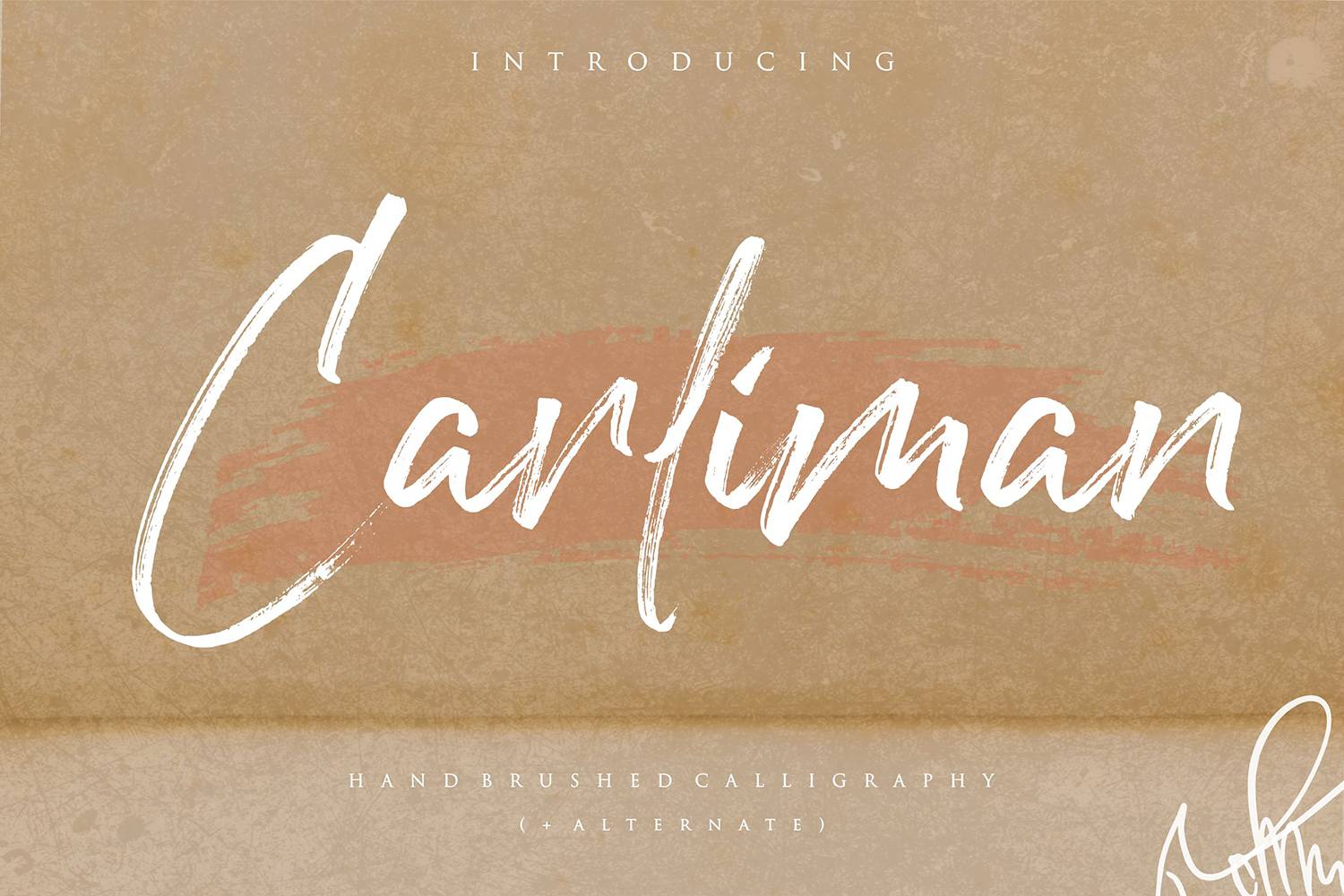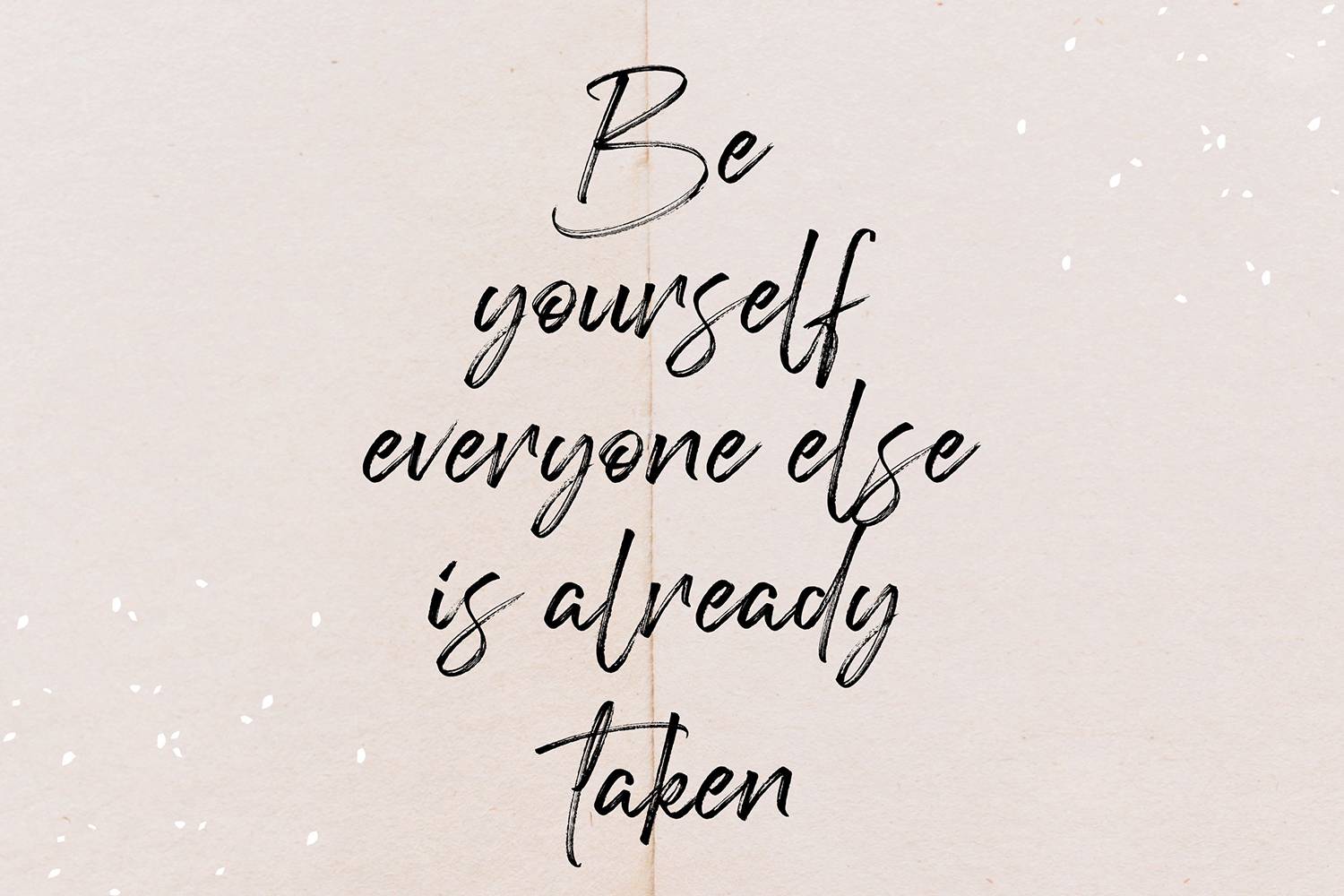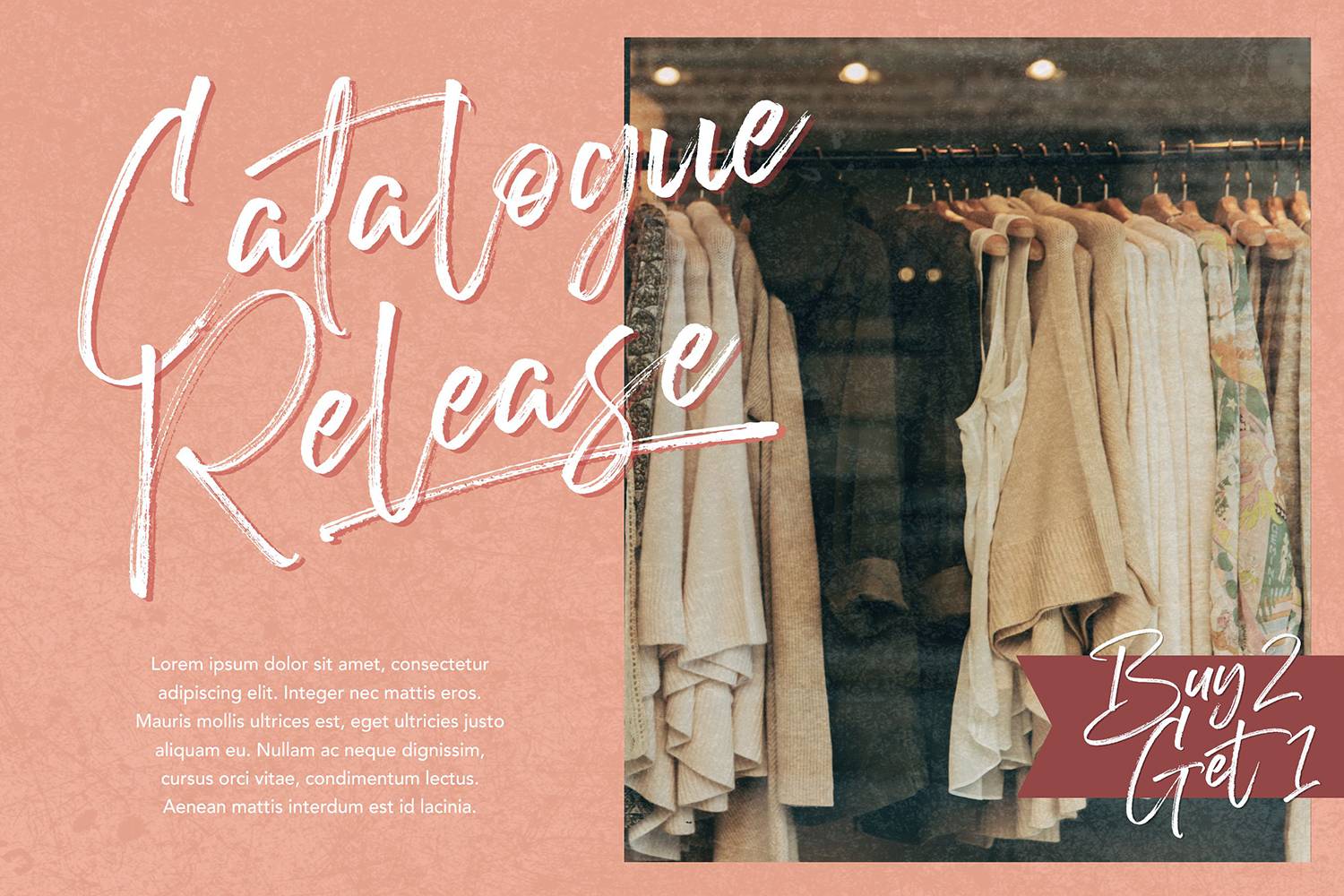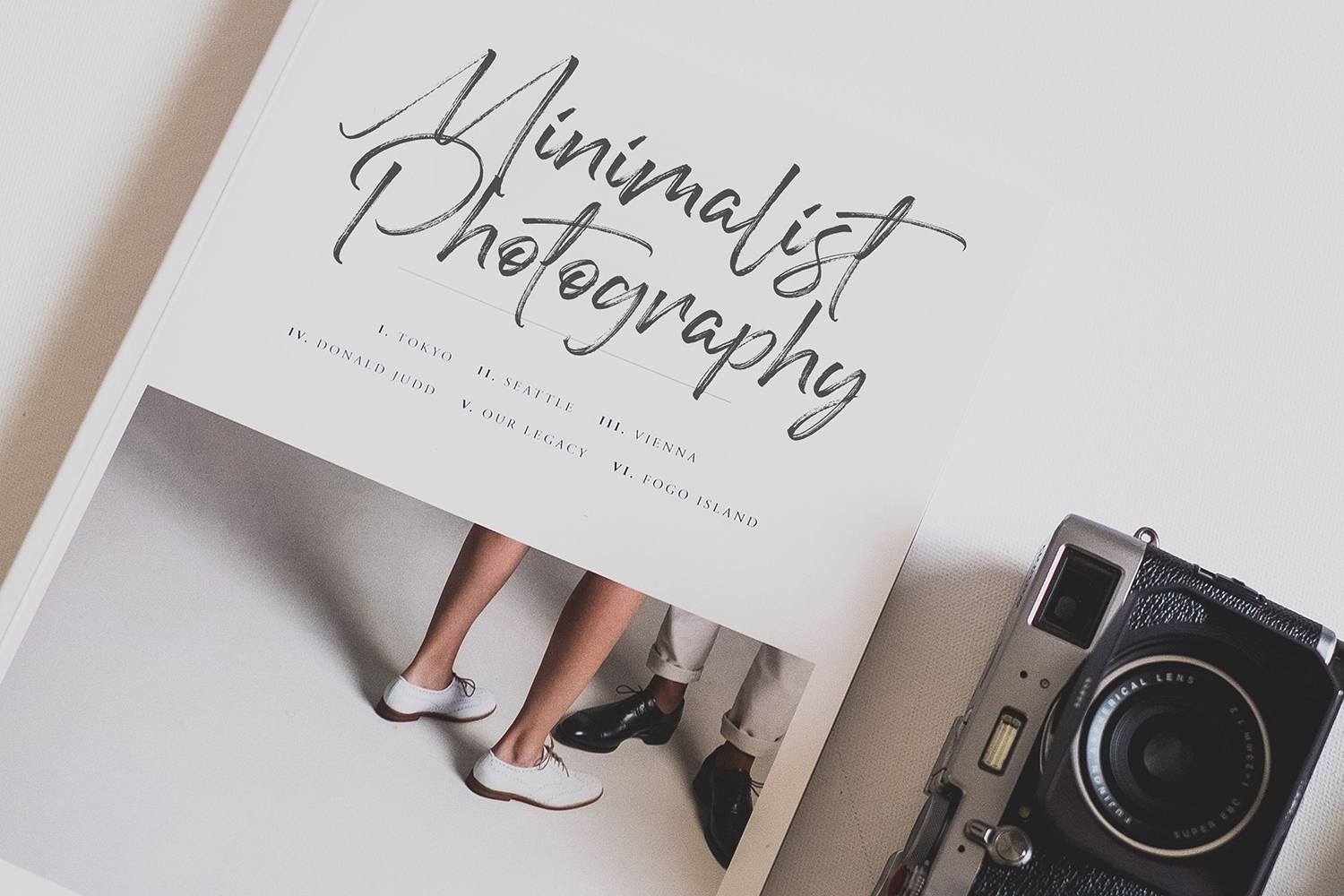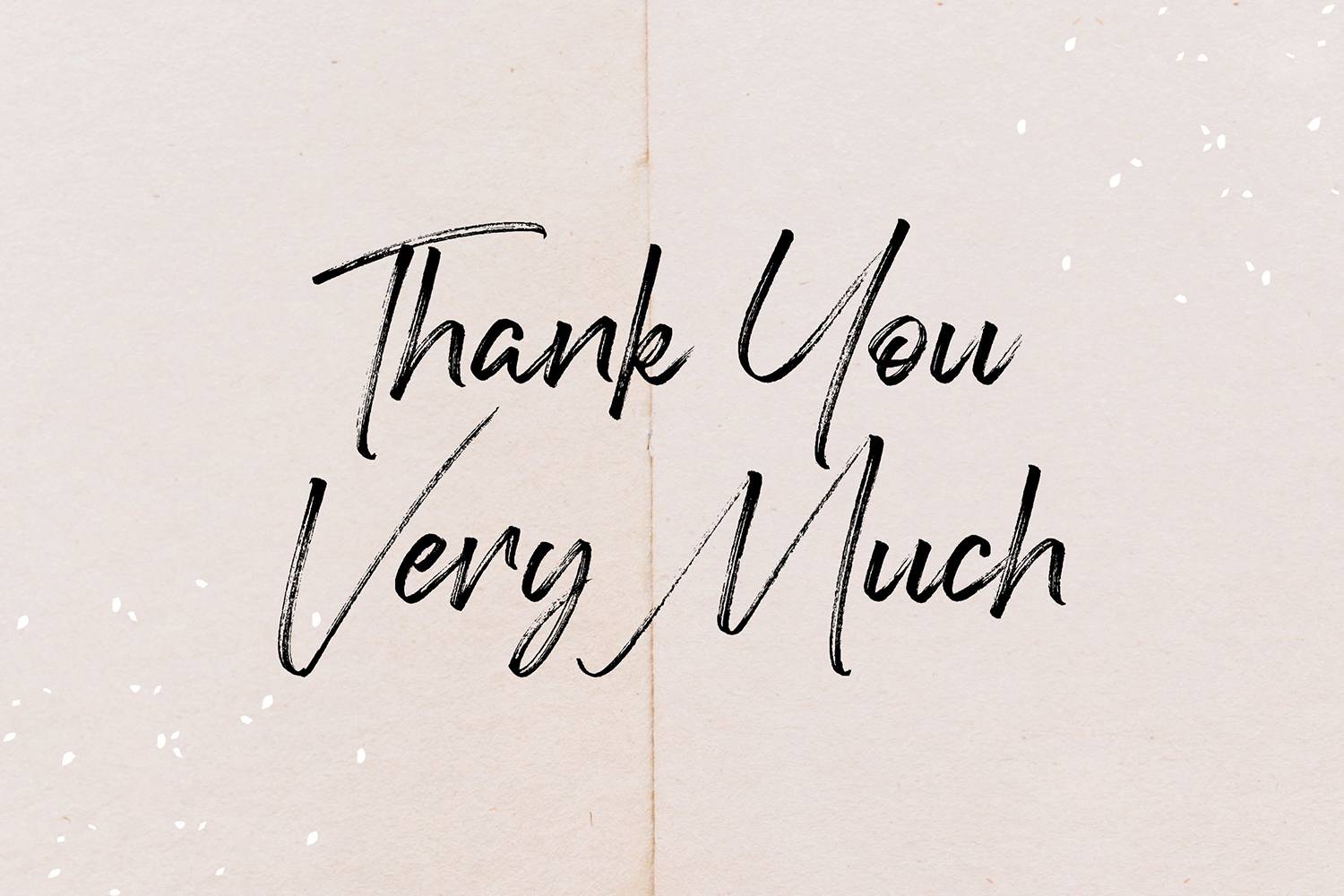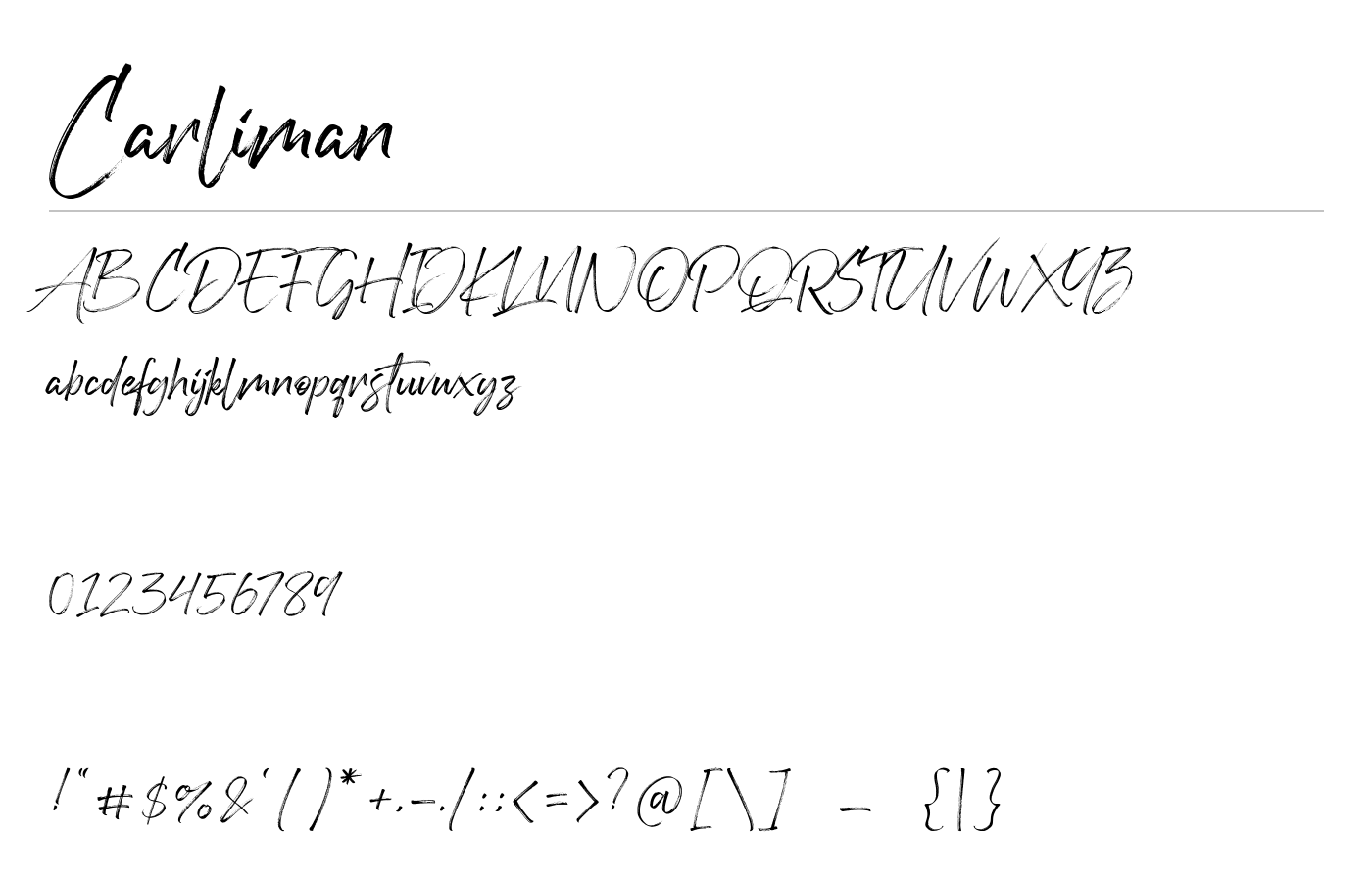
Carliman is an elegant script font with a hand-drawn, brushstroke style that conveys a personal, artistic touch. Its fluid, slightly textured lines and varying stroke widths create a dynamic and expressive feel, making it perfect for creative projects, branding, invitations, and headlines that seek a stylish and approachable look.
Carliman Font
About Carliman Font
| Font family | Carliman Font |